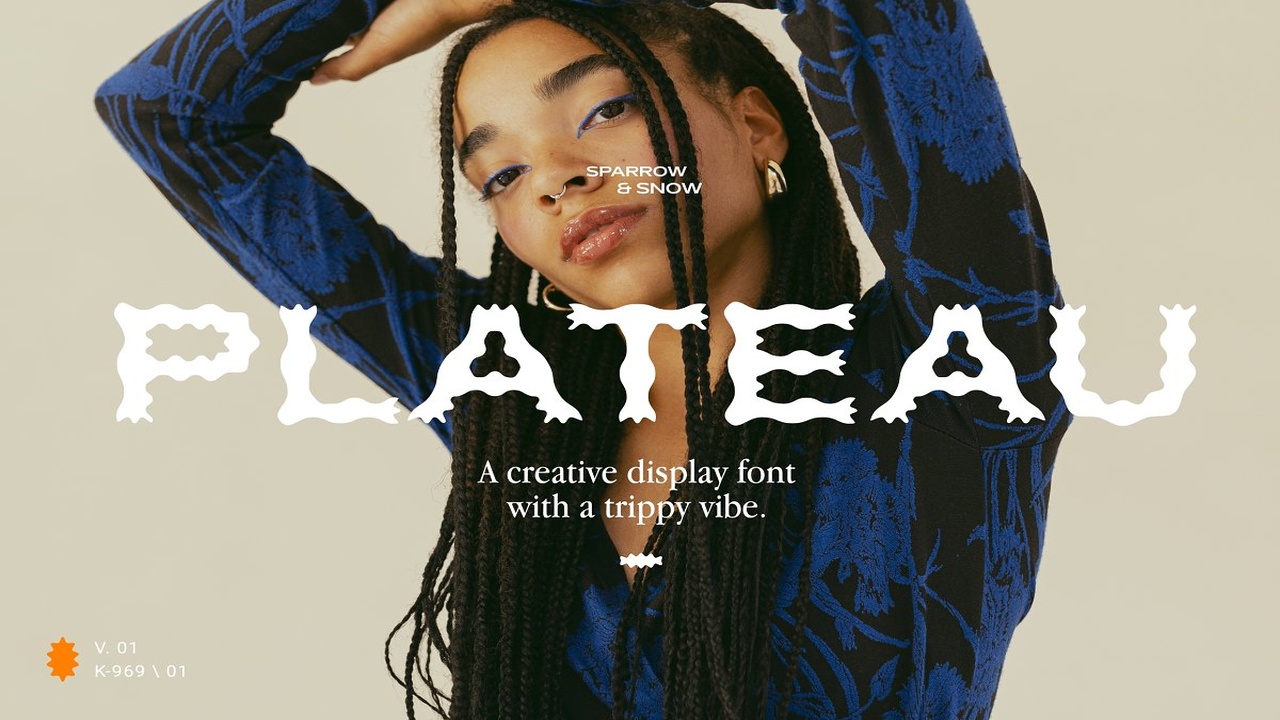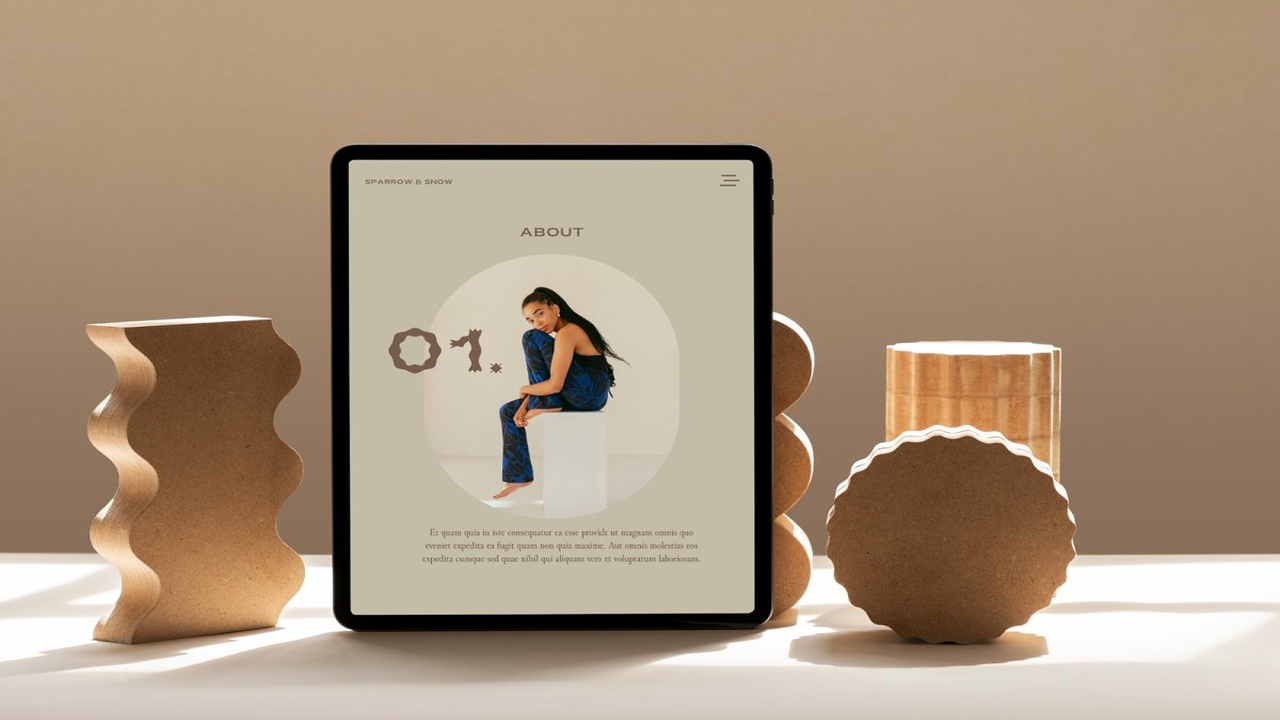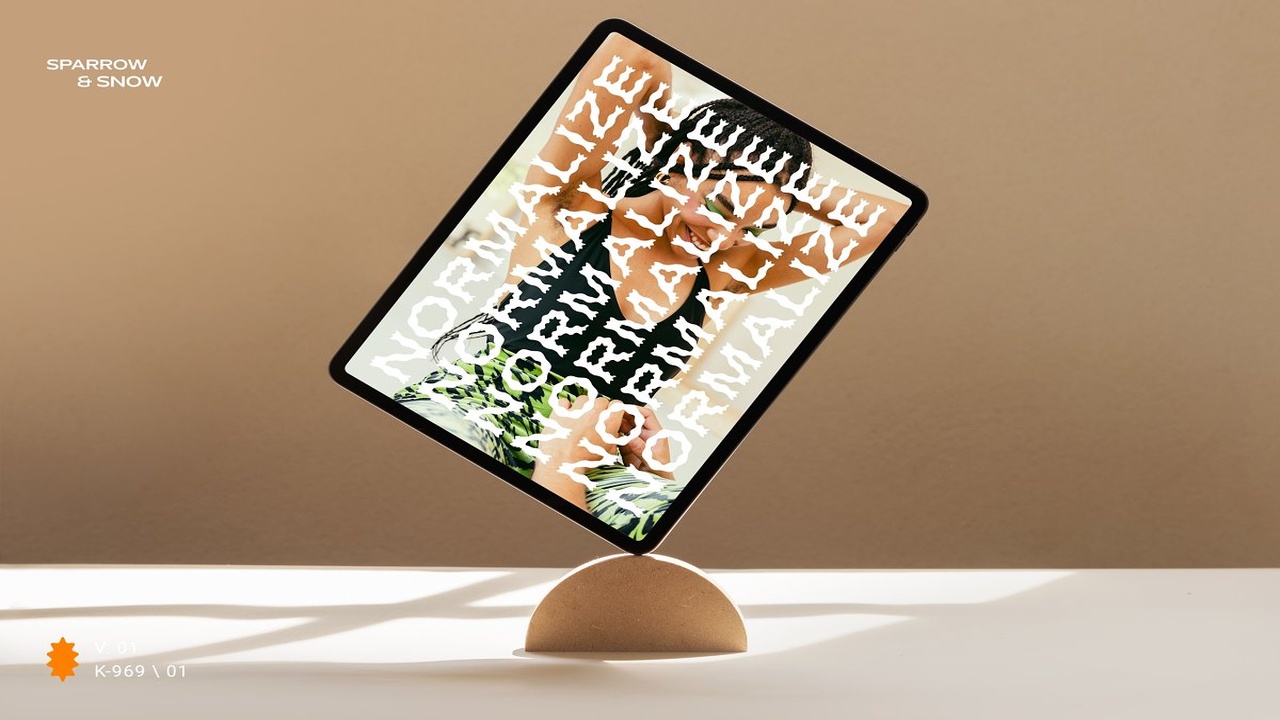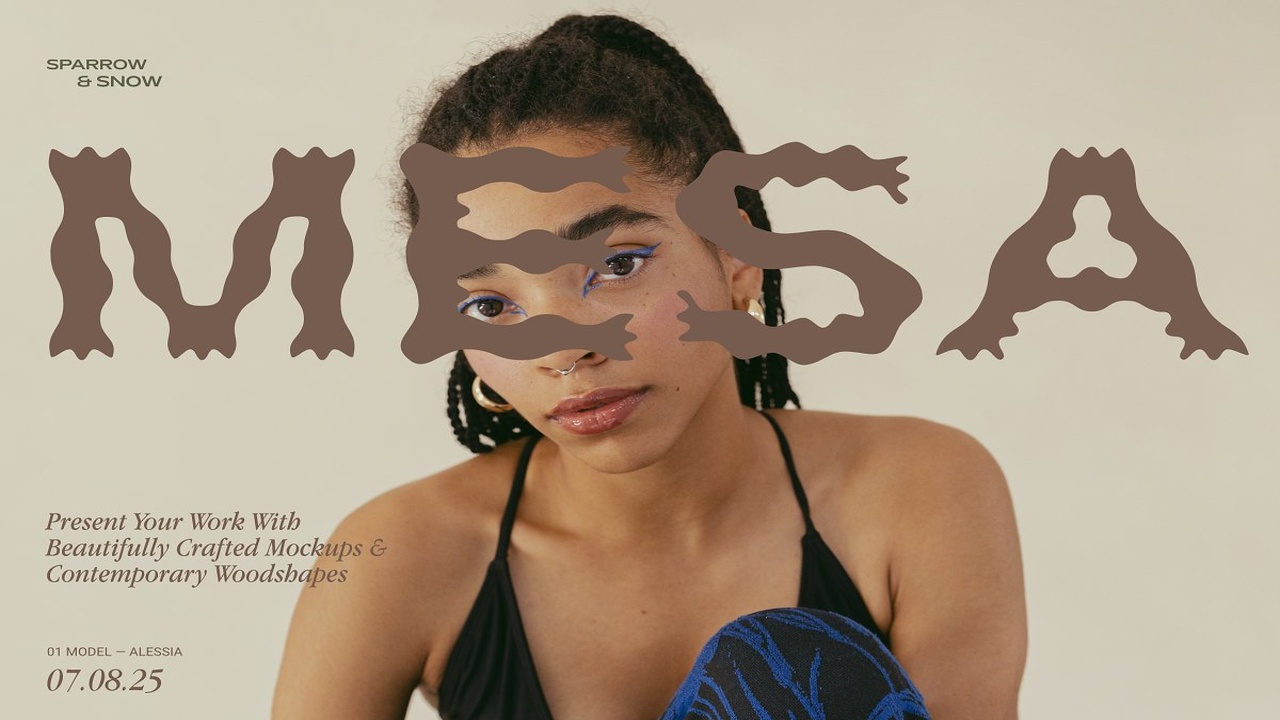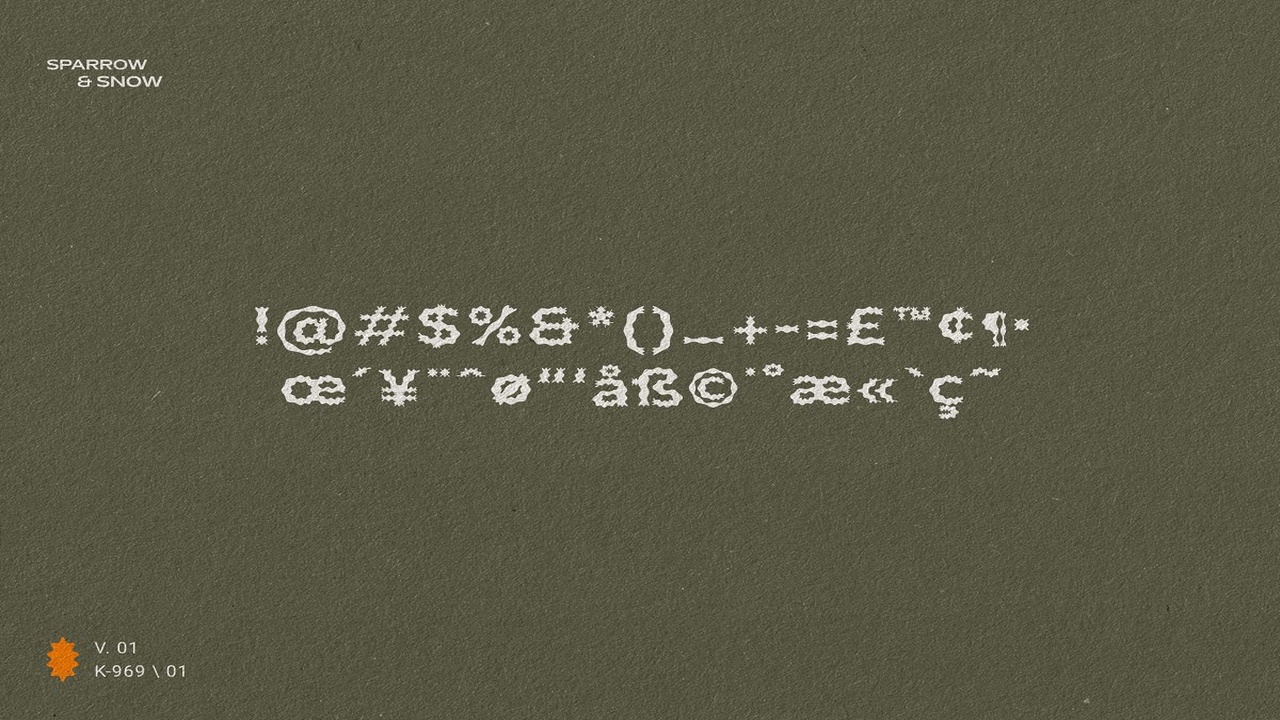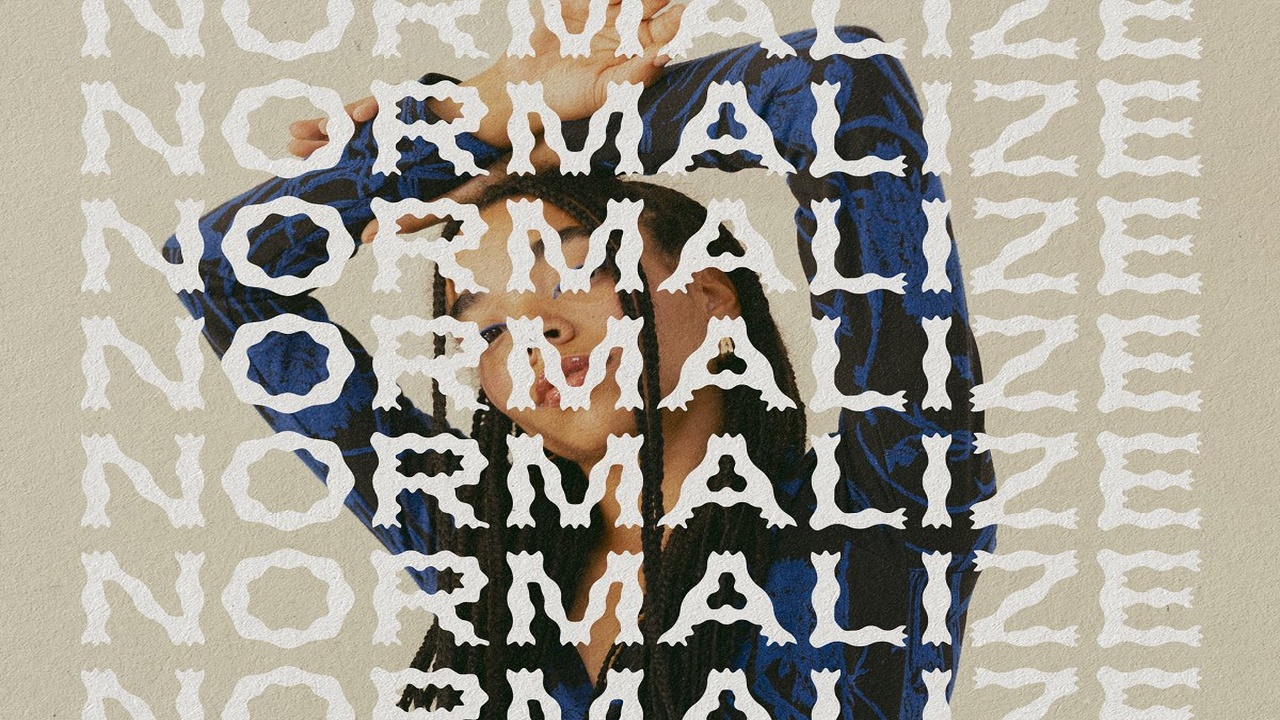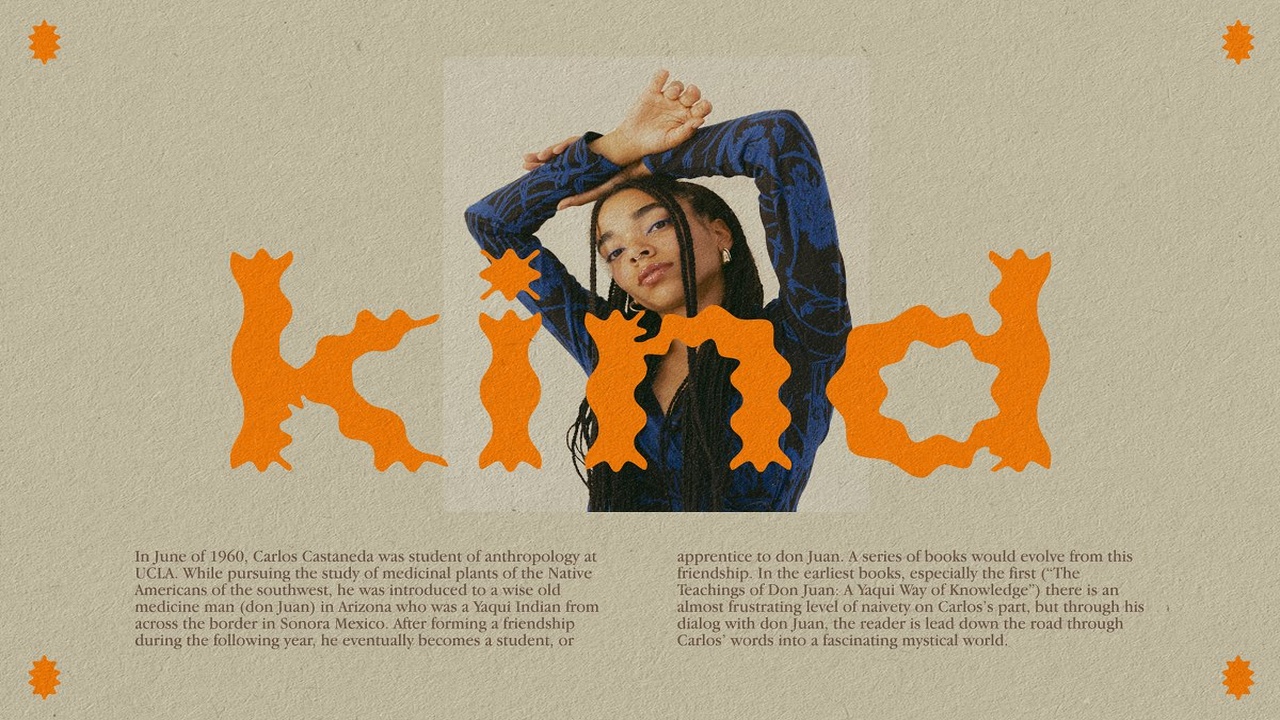
About the Plateau Font
GIFT! Don’t forget to subscribe to our Newsletter here https://sparrowandsnow, com/newsletterPlateau by Sparrow&Snow is a creative display font with a trippy vibe, featuring unique decorative elements that will make your design projects truly stand out, Plateau performs at its best when used for logos or titles, but it allows for good readability in smaller sizes as well as paragraph text
Plateau includes a total of 186 characters and multilingual support: uppercase, lowercase, numbers, and special characters, What’s inside:Plateau, otfPlateau, ttfPlateau, woff2The mockups used in the presentation can be found here: https://crmrkt